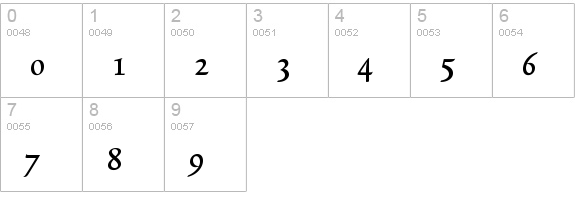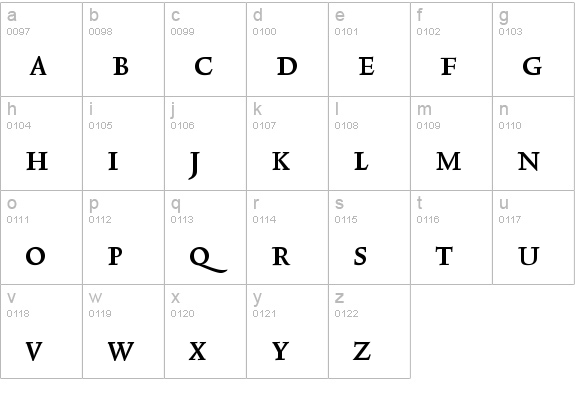
TriniteNo2-MediumCondExp font is a striking typeface that exudes elegance and professionalism. Its condensed and medium weight design makes it perfect for a wide range of creative projects, from branding and advertising to editorial layouts and web design. This font features clean lines and sharp corners, giving it a modern and sleek appearance. Its condensed proportions allow for efficient use of space, making it ideal for designs that require a compact and sophisticated look. TriniteNo2-MediumCondExp font offers a balanced blend of legibility and style, making it suitable for both large blocks of text and eye-catching headlines. Its medium weight strikes the right balance between boldness and subtlety, ensuring that your message stands out without overwhelming the reader. What sets TriniteNo2-MediumCondExp font apart is its versatility and adaptability. It effortlessly works well with other typefaces and can be easily paired with both serif and sans-serif fonts, adding a touch of uniqueness to any design project. As an added bonus, TriniteNo2-MediumCondExp font is available for free download at FontsMarket.com. This means that you can easily access and use this font in your projects without any limitations or restrictions. Whether you are a professional designer or a hobbyist, having access to high-quality fonts for free is a valuable resource that can enhance your creative endeavors. In conclusion, TriniteNo2-MediumCondExp font is a visually captivating typeface that offers a perfect balance of style and functionality. Its condensed and medium weight design, paired with its versatility and free availability, makes it an excellent choice for a wide range of design projects. Download it today from FontsMarket.com and unleash your creativity with this remarkable font.